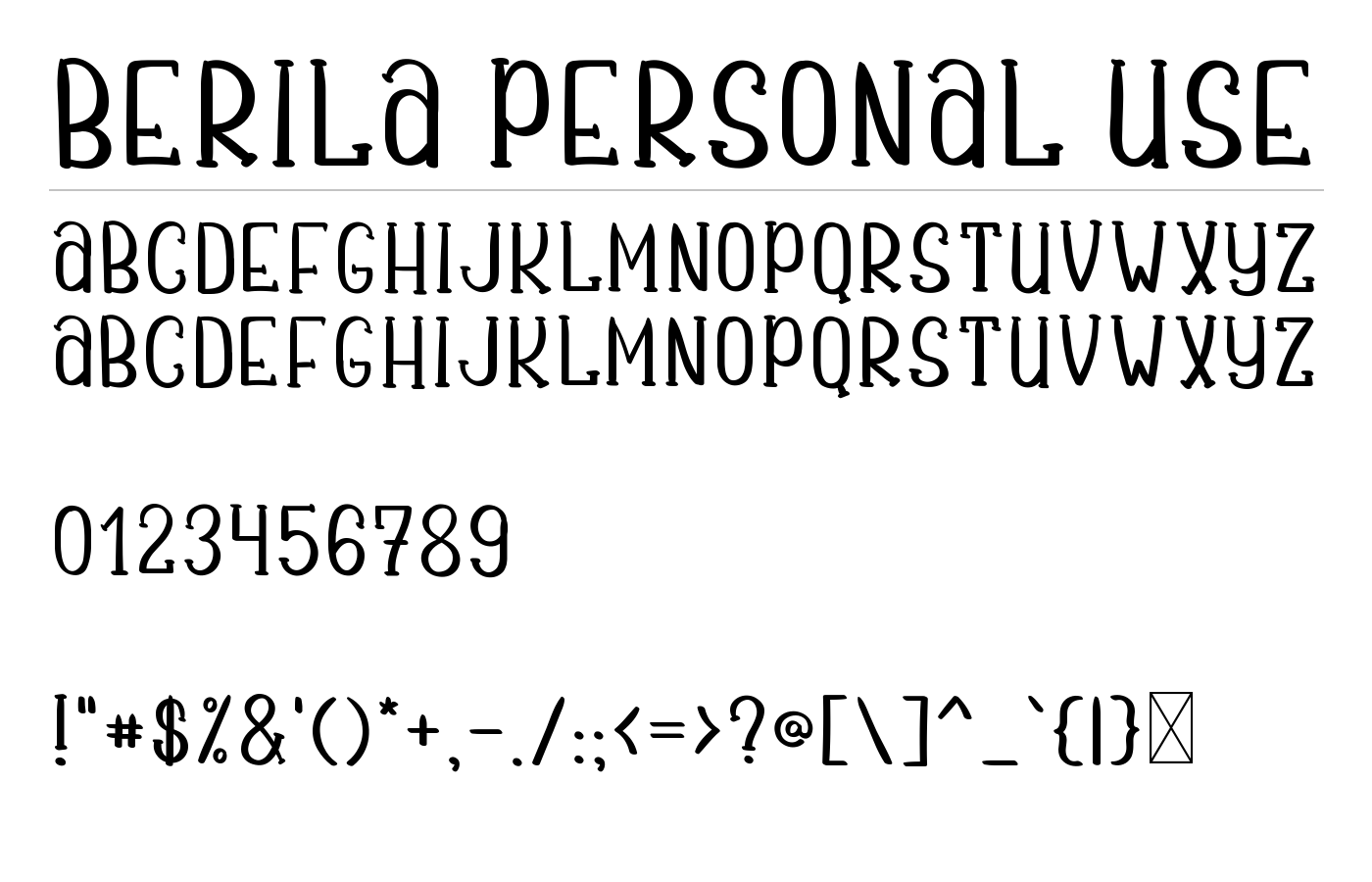
Berila PERSONAL USE is a whimsical sans serif font with tall, narrow letterforms and playful, quirky details that give it a hand-crafted feel. Its medium weight and moderate contrast create a friendly, approachable look that works well for informal branding, invitations, and creative projects needing a unique, artistic touch. This font shines in headlines and logos where personality and charm are desired.
Berila PERSONAL USE Font
About Berila PERSONAL USE Font
| Font family | Berila PERSONAL USE Font |